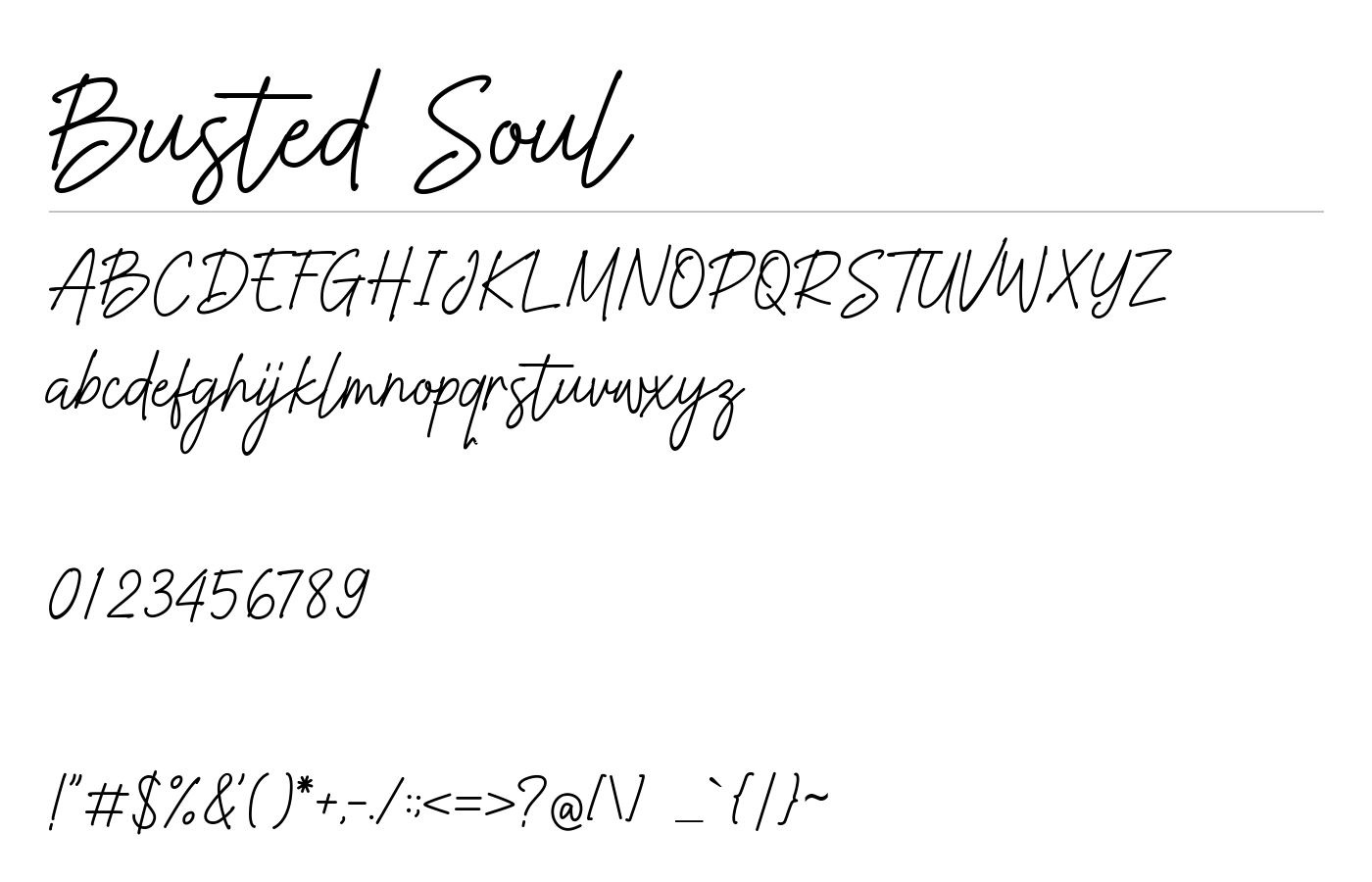
Busted Soul is a light, elegant handwritten script font with a casual and personal feel. Its tall, slightly condensed letterforms feature smooth, flowing strokes that give it a warm and approachable style, ideal for creative branding, invitations, and modern editorial design. This font works well in settings where a friendly, artistic touch is needed without sacrificing readability.
Busted Soul Font
About Busted Soul Font
| Font family | Busted Soul Font |
| Designer | Heinzel Std |